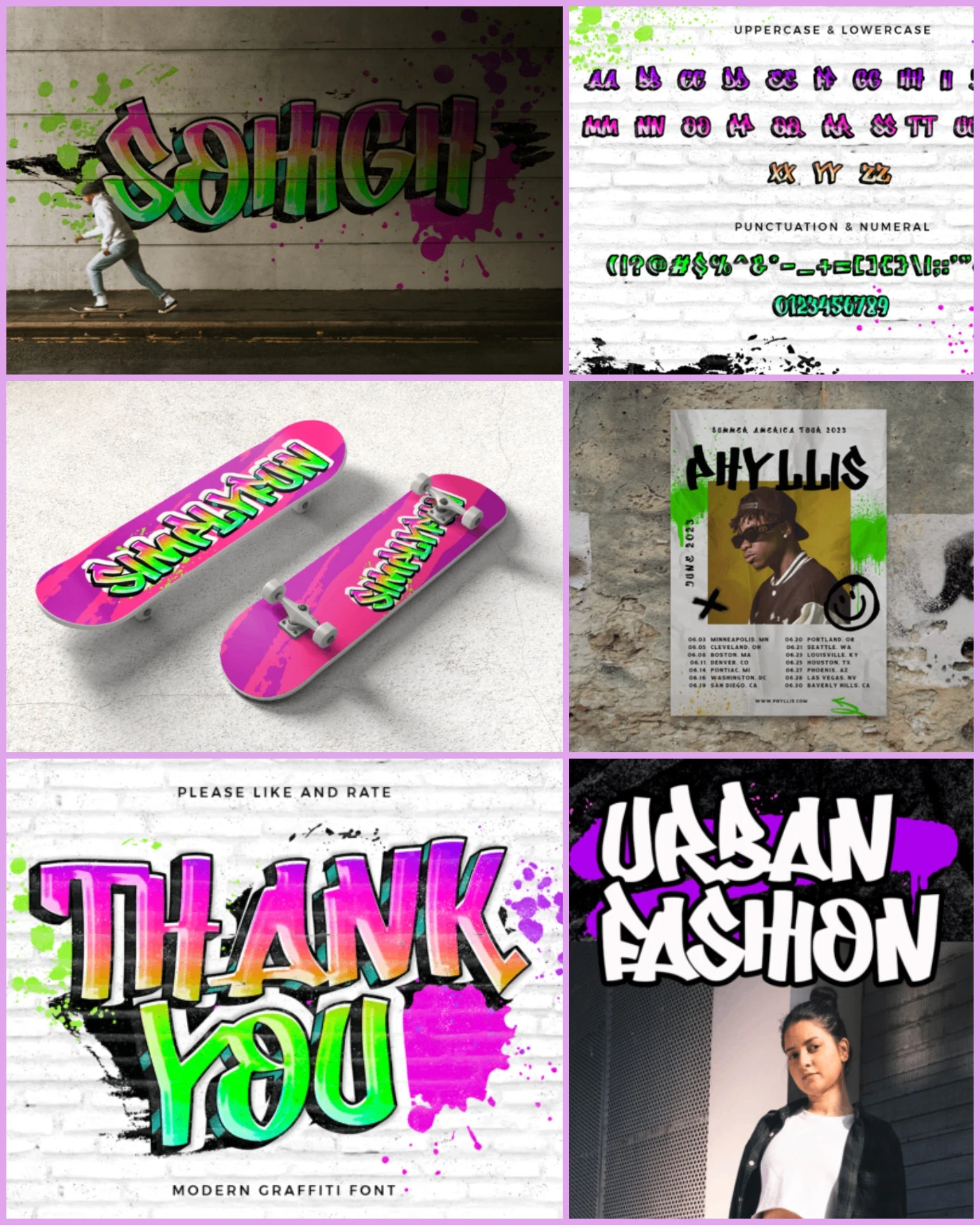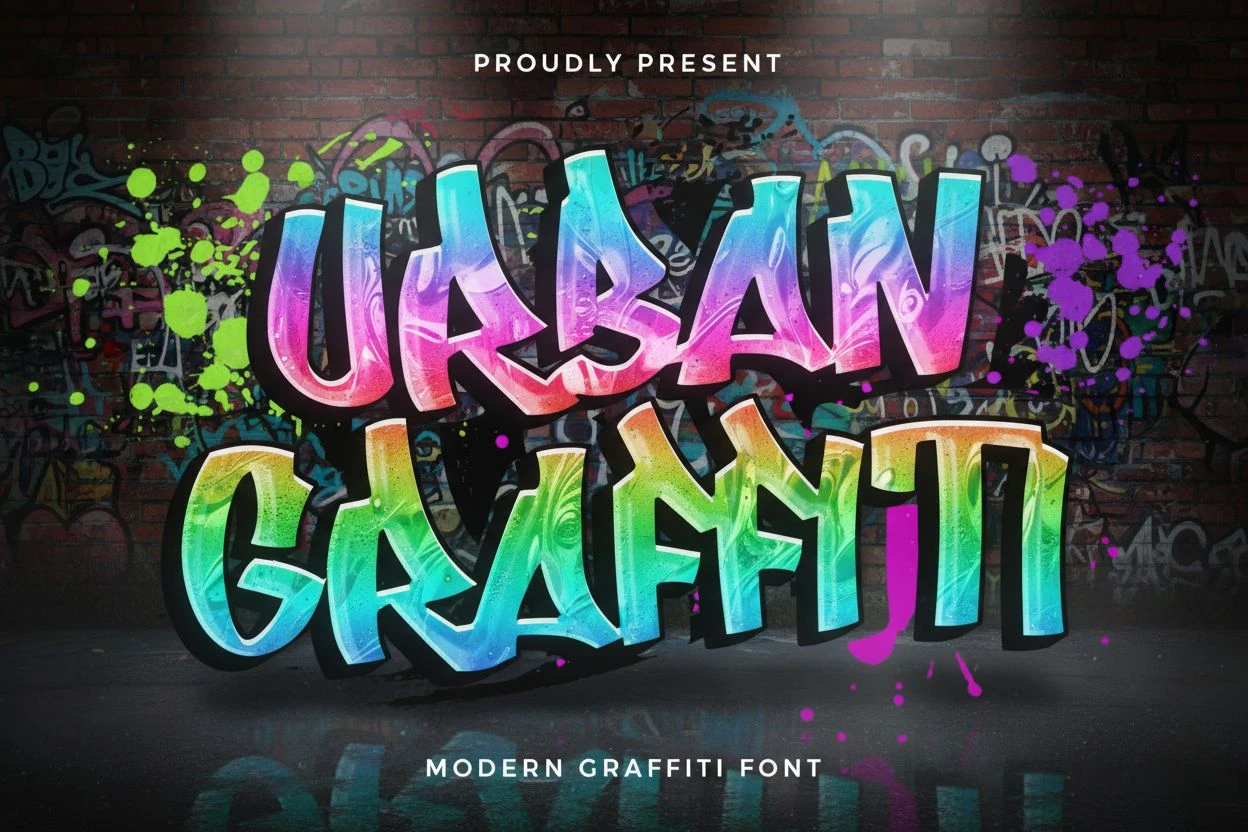
Urban Graffiti is a bold and expressive graffiti font inspired by real street art, hip-hop culture, and urban design. Featuring edgy letterforms, dynamic strokes, and high-impact stylistic details, this typeface brings raw street energy to any project. Perfect for posters, album covers, streetwear apparel, YouTube thumbnails, branding, and social media graphics, Urban Graffiti delivers an authentic underground vibe that instantly grabs attention.
With its rebellious attitude and street-smart aesthetic, this font is ideal for designers looking to create bold, gritty, and eye-catching visuals. Urban Graffiti is PUA-encoded for easy access to all glyphs, swashes, and stylistic alternates, making it a powerful tool for creative expression in digital and print projects.
Use it for urban branding, graffiti tags, skate culture designs, music artwork, promotional posters, or any layout that needs a strong, modern street-art personality.